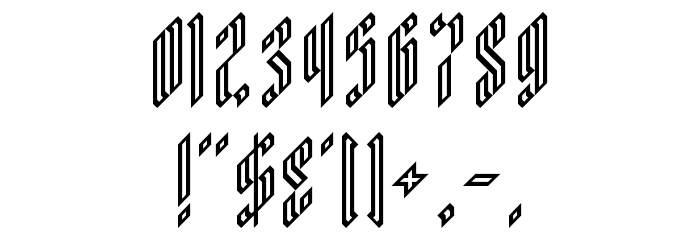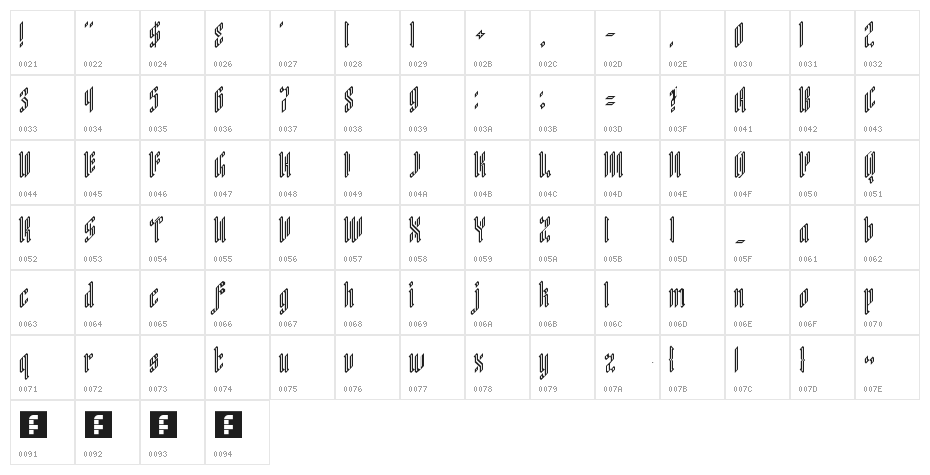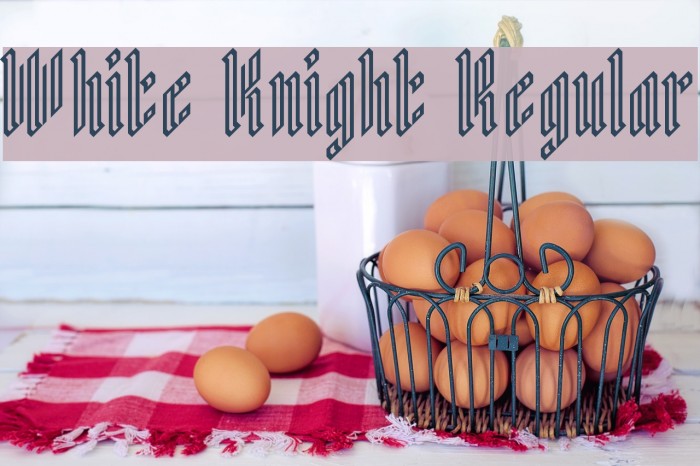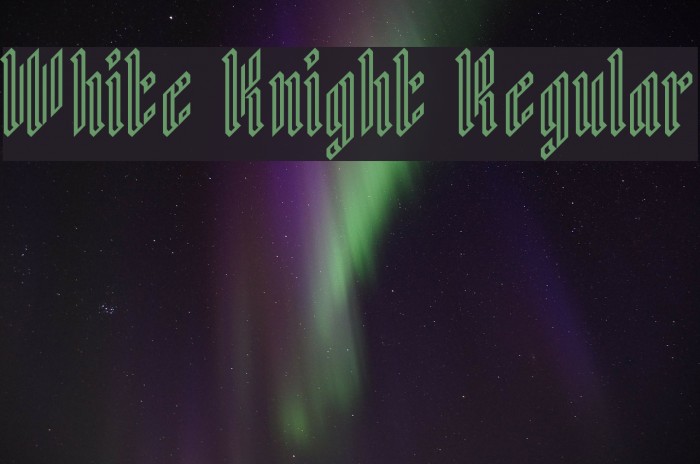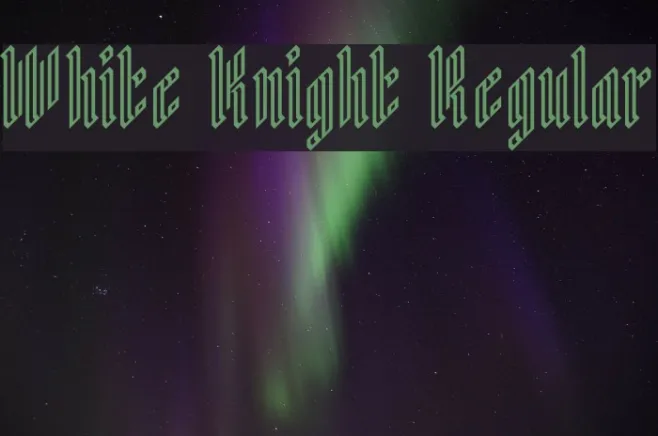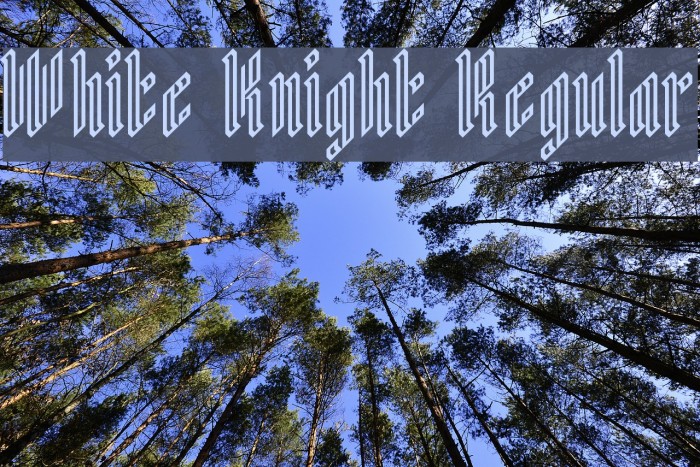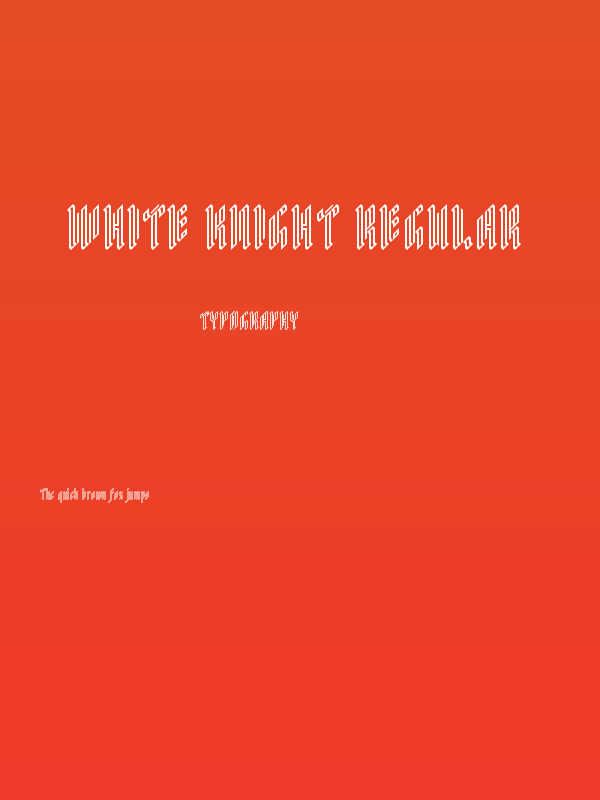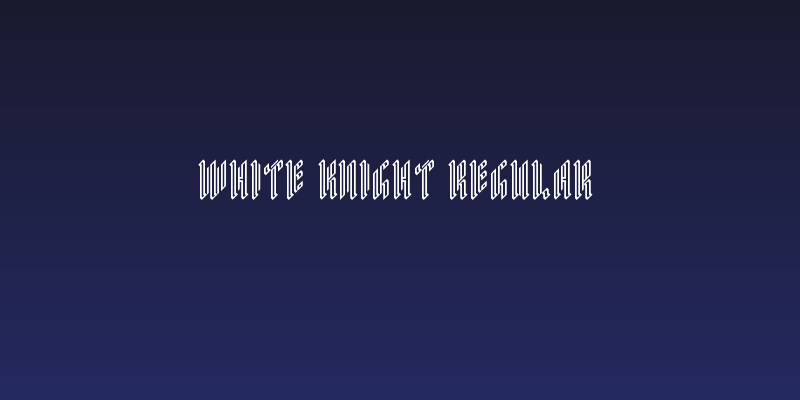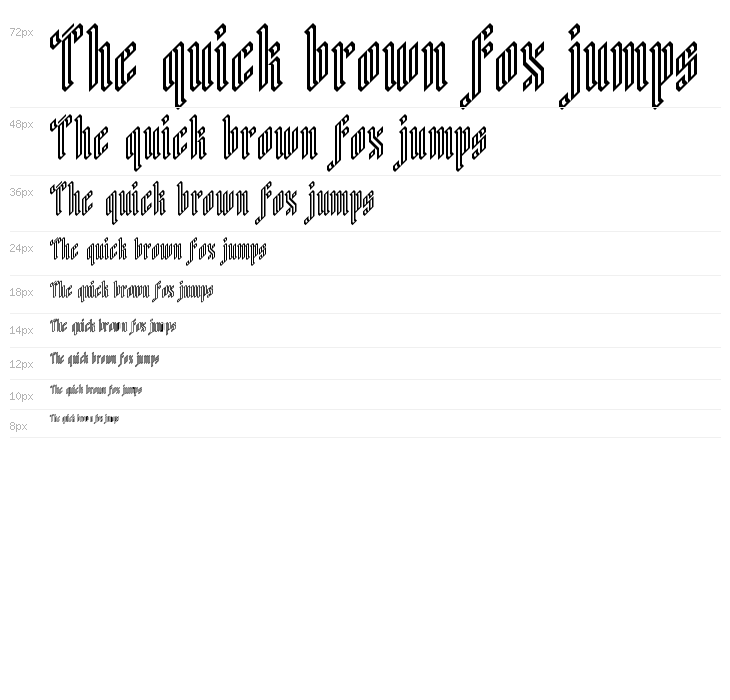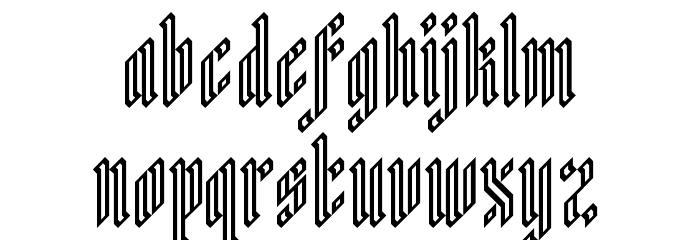
White Knight Regular Font
White Knight Regular Description
This font exhibits a striking and bold blackletter style, characterized by its sharp, angular lines and intricate detailing. The uppercase letters are tall and narrow, with a distinct medieval flair that evokes a sense of tradition and history. The lowercase letters maintain the same stylistic elements, offering a cohesive look throughout. Numbers and special characters are designed with the same attention to detail, ensuring consistency across all glyphs. This font's dramatic appearance makes it ideal for projects that require a touch of elegance and formality.
| Use Case | Headlines, Logos, Decorative text |
| Proposed Projects | Ideal for historical documents, event invitations, book covers, and branding that requires a traditional or gothic touch. |